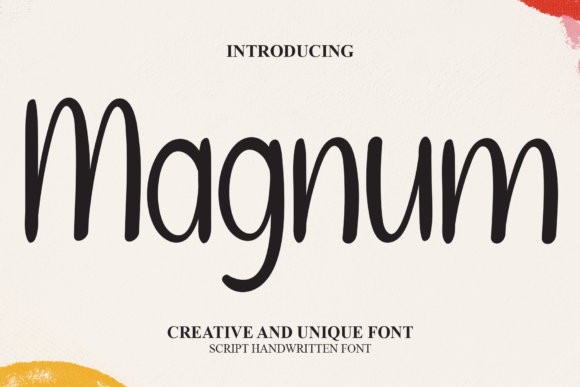
Prepare to be mesmerized by Magnum Font, an exquisite script font that exudes elegance and sophistication. Crafted with meticulous care by Strongkeng Old, this font elevates your creative projects to unparalleled heights, transforming them into breathtaking works of art.
Immerse yourself in the captivating world of Magnum Font, a script typeface that dances across the page with grace and allure. Its sweeping strokes and delicate curves add a touch of enchantment to your designs, leaving a lasting impression on all who behold it.
With Magnum Font, your words take on a life of their own, conveying emotions and messages with unparalleled eloquence. Whether you're crafting heartfelt wedding invitations, enchanting social media posts, or adding a touch of magic to your personal branding, this font is your perfect companion.
Let Magnum Font ignite your creativity and transport you to a realm of boundless possibilities. Its versatility knows no bounds, seamlessly adapting to a myriad of design endeavors. From eye-catching logos and business cards to captivating posters and flyers, Magnum Font elevates your projects to new heights, leaving an indelible mark on your audience.